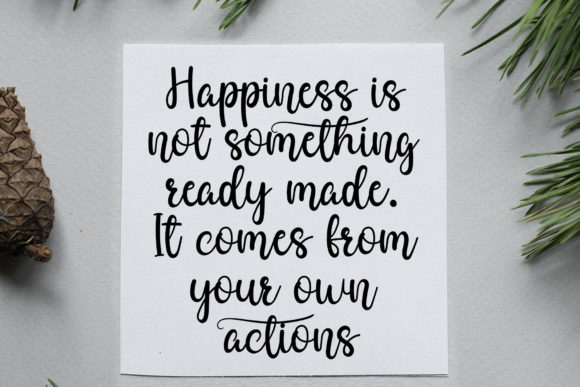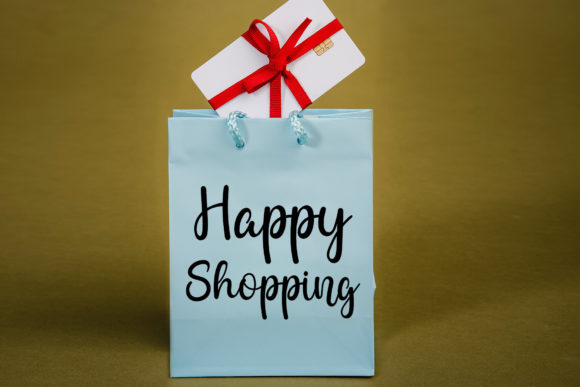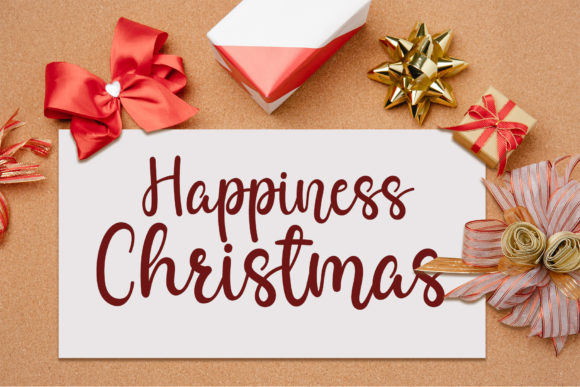
About Mandala Creator Font
Mandala Creator is a beautiful and light handwritten font, featuring a delicate feel and a stunning impact. It will add a luxury spark to any design project that you wish to create!